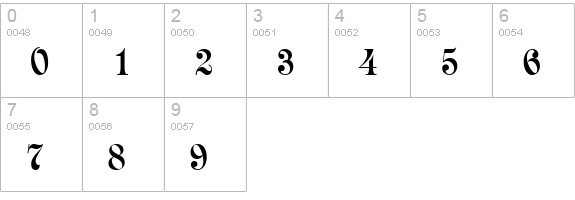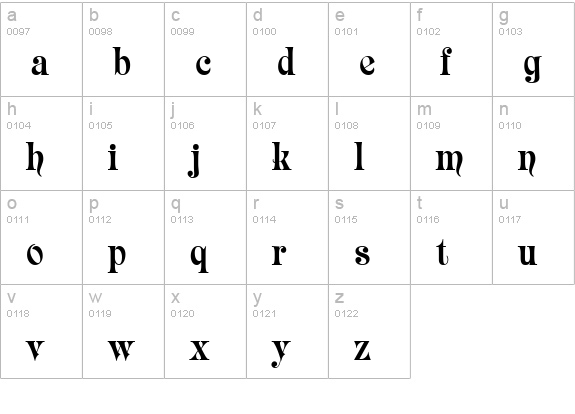
Rubius Font Details
Rubius font is a stylish and elegant typeface that combines classic design elements with a modern twist. Its sleek lines and sophisticated curves make it perfect for a wide range of design projects, from branding to editorial design. The versatility of Rubius font allows it to be used in both headlines and body text, making it a go-to choice for designers looking for a timeless and versatile typeface. The best part about Rubius font is that it is completely free to download at FontsMarket.com. This means that you can easily add this stunning font to your collection without having to worry about any licensing fees or restrictions. Whether you're working on a personal project or a professional design, Rubius font is sure to elevate your work and give it a touch of elegance and sophistication. Don't miss out on this fantastic opportunity to enhance your designs with the beautiful Rubius font, available for free at FontsMarket.com.